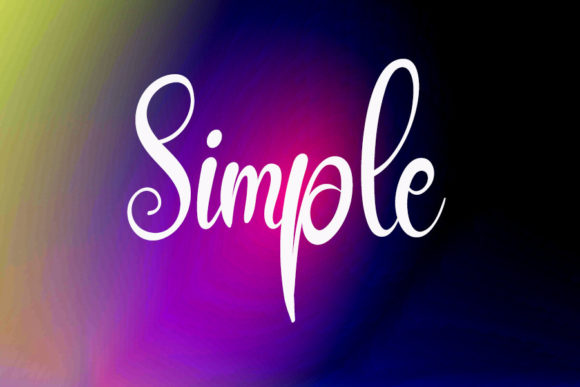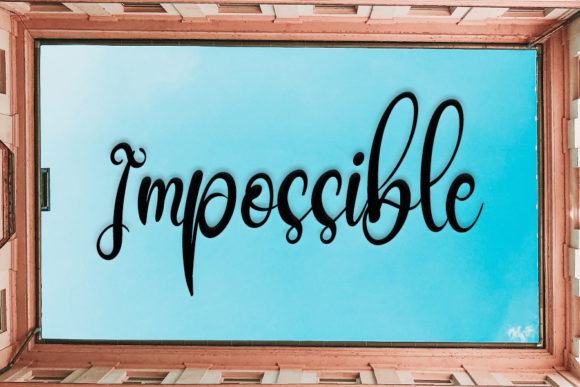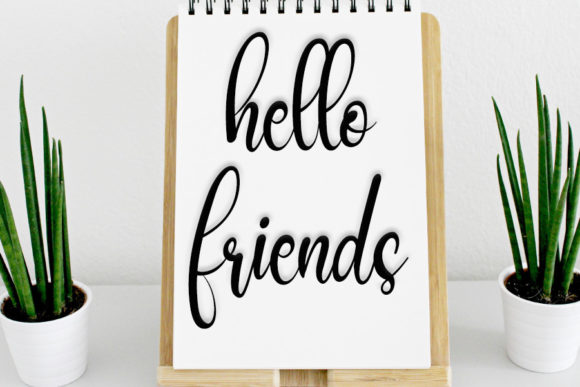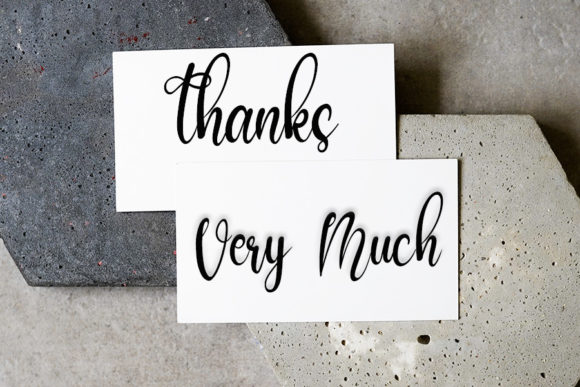
Pinky Font
About Pinky Font
Pinky is a beautiful and versatile handwritten font with a unique feel and a stunning impact. It will add a lovely spark to any design or creative project you have coming up.